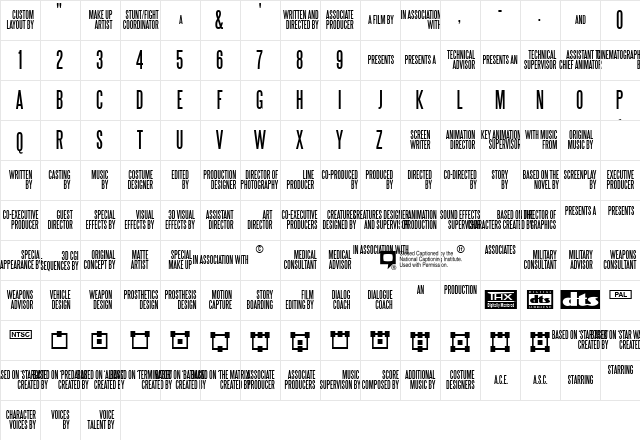
SteelTongs Regular
| Foundry | TracerTong (Modified Steelfish by Larabiefonts.com) |
Design Context for SteelTongs Typeface
SteelTongs takes a measured approach to typography — its balanced proportions and neutral character make it a reliable workhorse for both digital and print work.
Pro Tip: Pair SteelTongs with a font of contrasting weight or personality to build a more expressive typographic hierarchy.